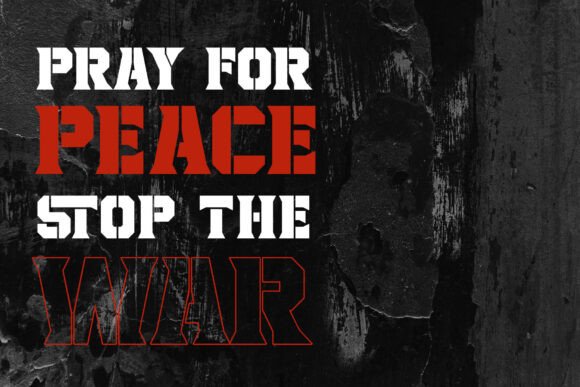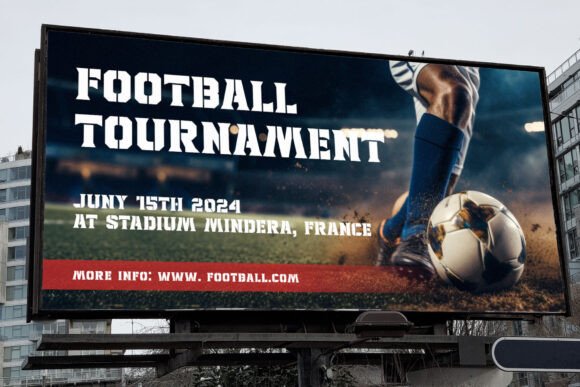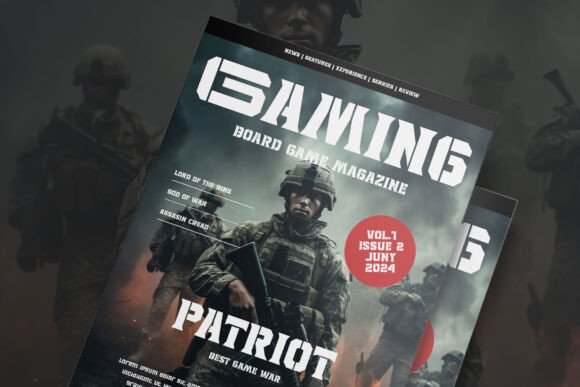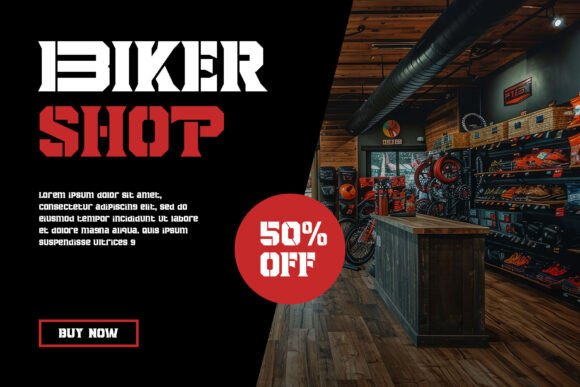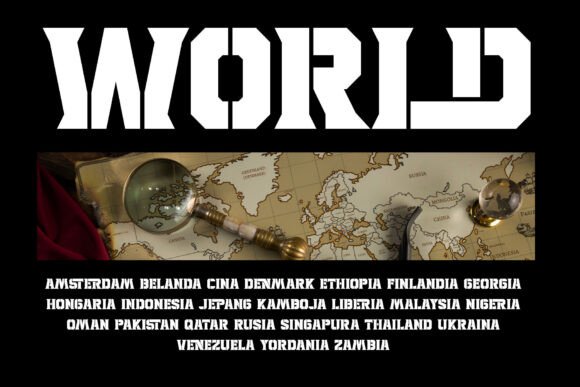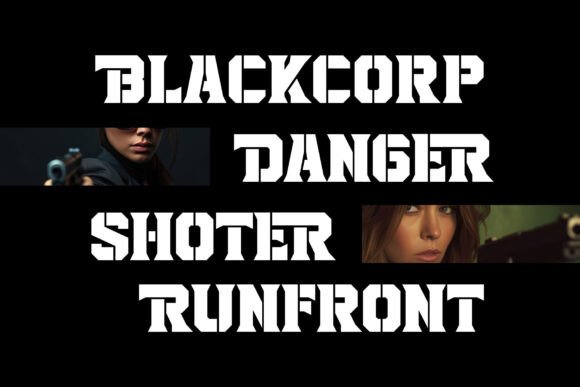
Introducing Defront Font: The Ultimate Choice for Bold and Strong Designs
Are you looking for a font that can add a touch of military-inspired style to your design projects? Look no further than Defront Font. This stencil font is designed to bring bold and strong geometric shapes to your designs, giving them a versatile look that’s perfect for a wide range of creative endeavors.
What is Defront Font?
Defront Font is a stencil font that’s inspired by the visual design of military equipment and gear. Its bold and strong geometric shapes make it the perfect choice for designers who want to add a touch of edginess to their projects. Whether you’re working on a logo design, advertisement, or branding project, Defront Font is sure to make a statement.
Key Features of Defront Font
- Bold and Strong Geometric Shapes: Defront Font features bold and strong geometric shapes that are inspired by military visual design.
- Versatile Look: The font’s versatile look makes it perfect for a wide range of design projects, from lifestyle designs to corporate brands.
- Military or Sports Touch: Defront Font is ideal for projects that require a military or sports touch, such as logotypes, advertisements, caution signs, and more.
- Stencil Font: Defront Font is a stencil font, which gives it a unique and edgy look that’s perfect for designers who want to add a touch of industrial style to their projects.
Use Cases for Defront Font
Defront Font is perfect for a wide range of design projects, including:
- Logotypes: Use Defront Font to create a bold and strong logotype that makes a statement.
- Advertisements: Defront Font is perfect for advertisements that require a bold and attention-grabbing font.
- Caution Signs: The font’s military-inspired style makes it perfect for caution signs and warning labels.
- Stationery: Use Defront Font to add a touch of industrial style to your stationery designs.
- Branding: Defront Font is ideal for branding projects that require a bold and strong font.
- Display and Magazine Layouts: The font’s versatile look makes it perfect for display and magazine layouts.
- Invitations: Use Defront Font to create bold and eye-catching invitations for special events.
- Corporate Brands: Defront Font is perfect for corporate brands that want to add a touch of industrial style to their branding.
- Product Designs: The font’s bold and strong geometric shapes make it perfect for product designs that require a military or sports touch.
- Labels: Use Defront Font to create bold and eye-catching labels for products or packaging.
- Business Projects: Defront Font is ideal for business projects that require a bold and strong font.
Why Choose Defront Font?
There are many reasons why Defront Font is the perfect choice for designers and crafters. Here are just a few:
- Unique and Edgy Look: Defront Font has a unique and edgy look that’s perfect for designers who want to add a touch of industrial style to their projects.
- Versatile: The font’s versatile look makes it perfect for a wide range of design projects.
- Easy to Read: Despite its bold and strong geometric shapes, Defront Font is easy to read and understand.
- High-Quality Design: Defront Font is designed to high-quality standards, ensuring that it looks great in any design project.
Defront Font is the perfect choice for designers and crafters who want to add a touch of military-inspired style to their design projects. Its bold and strong geometric shapes make it perfect for a wide range of creative endeavors, from lifestyle designs to corporate brands. With its unique and edgy look, versatile design, and high-quality construction, Defront Font is sure to become a favorite font in your design arsenal.